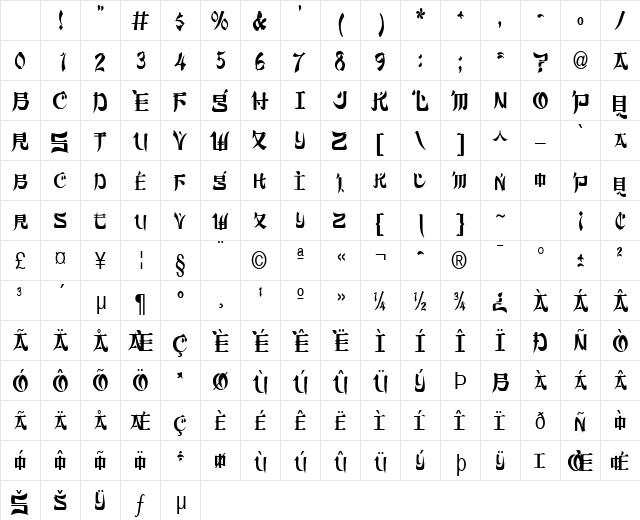
Complete Orient2-Condensed Normal glyph index. Displaying only characters natively supported by Orient2-Condensed Normal font.
Orient2-Condensed is a composed and adaptable typeface that performs quietly and consistently across a wide range of design contexts. Its narrow stance lets it pack a punch even in space-constrained designs.